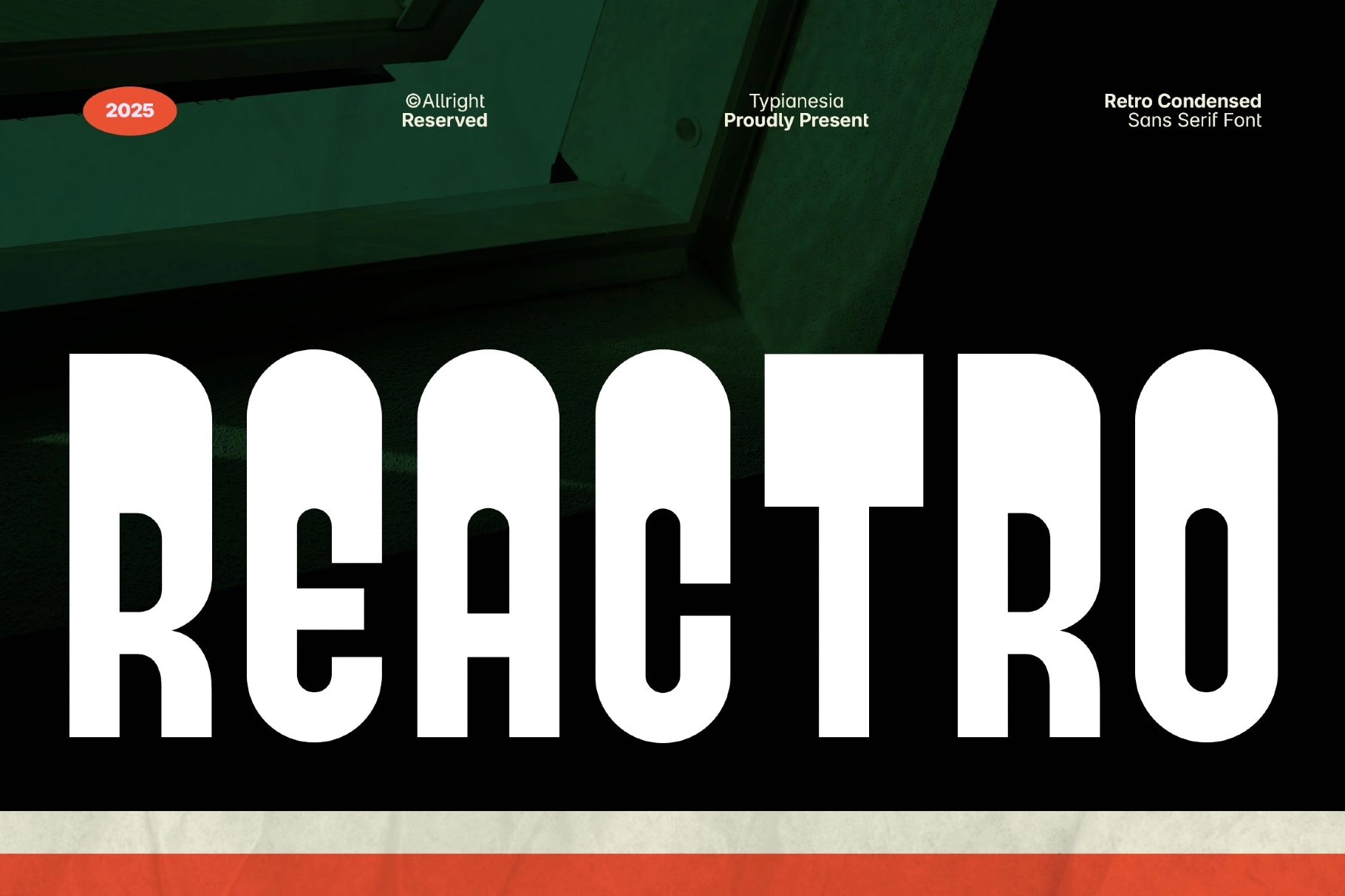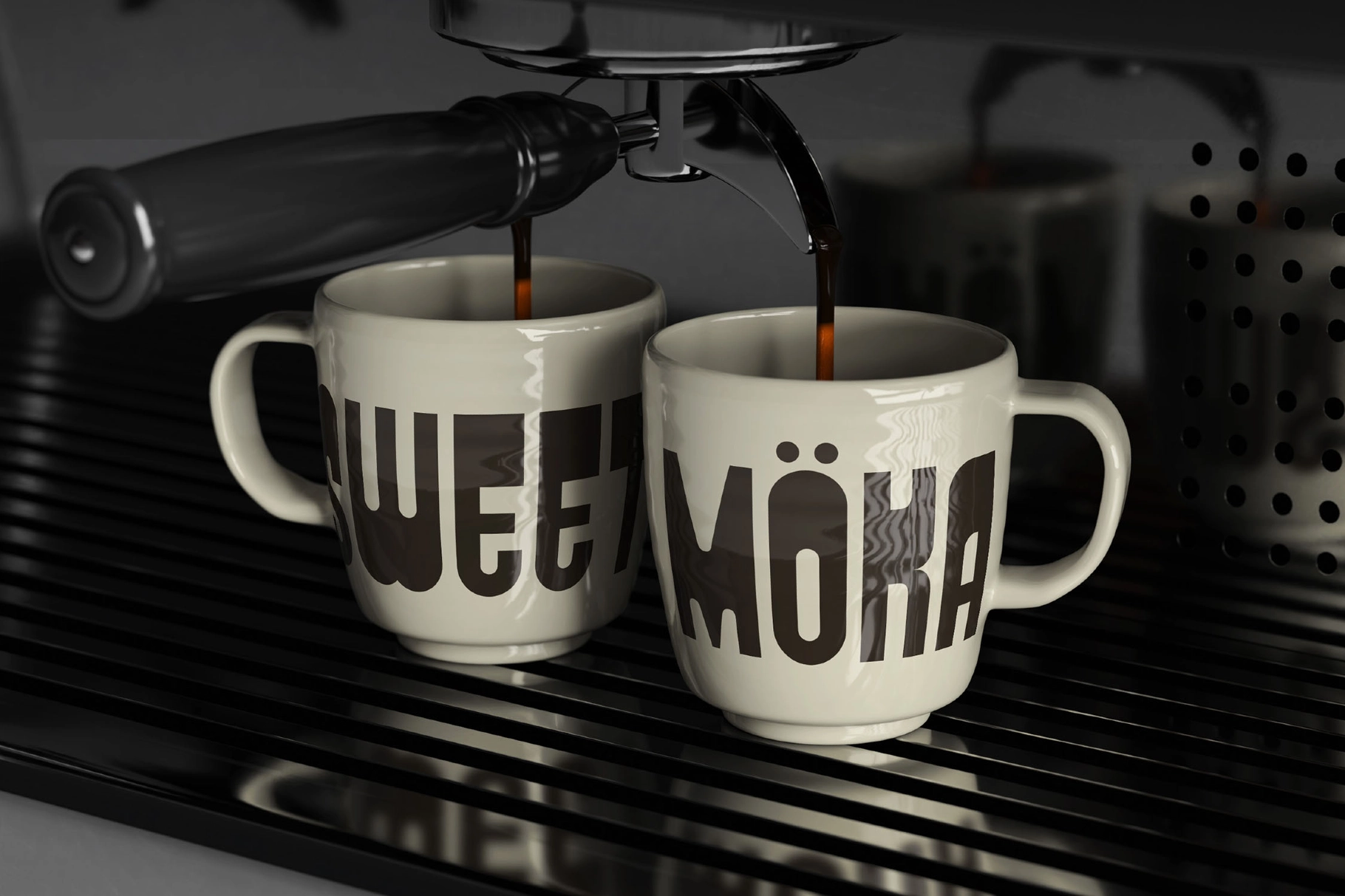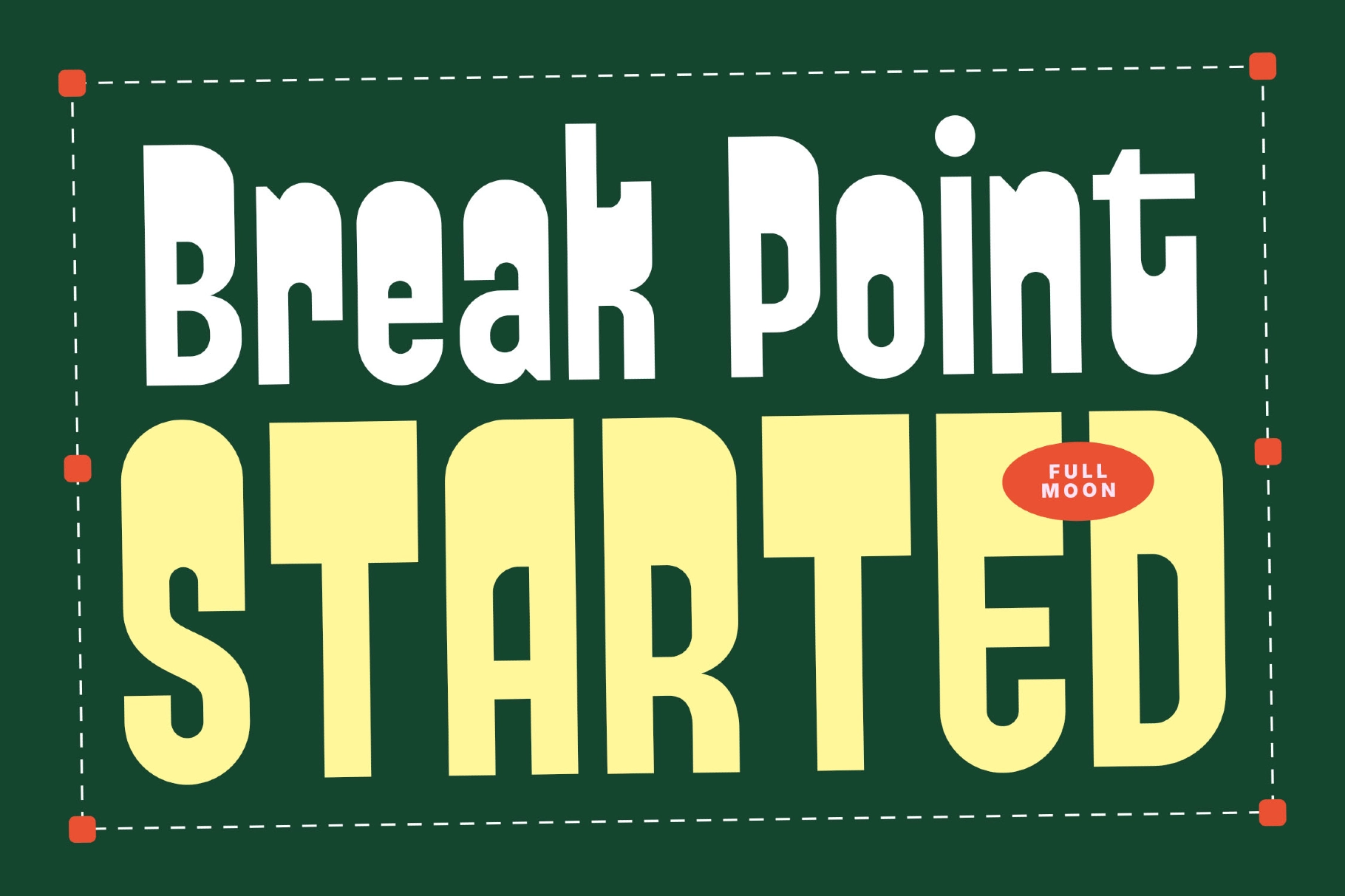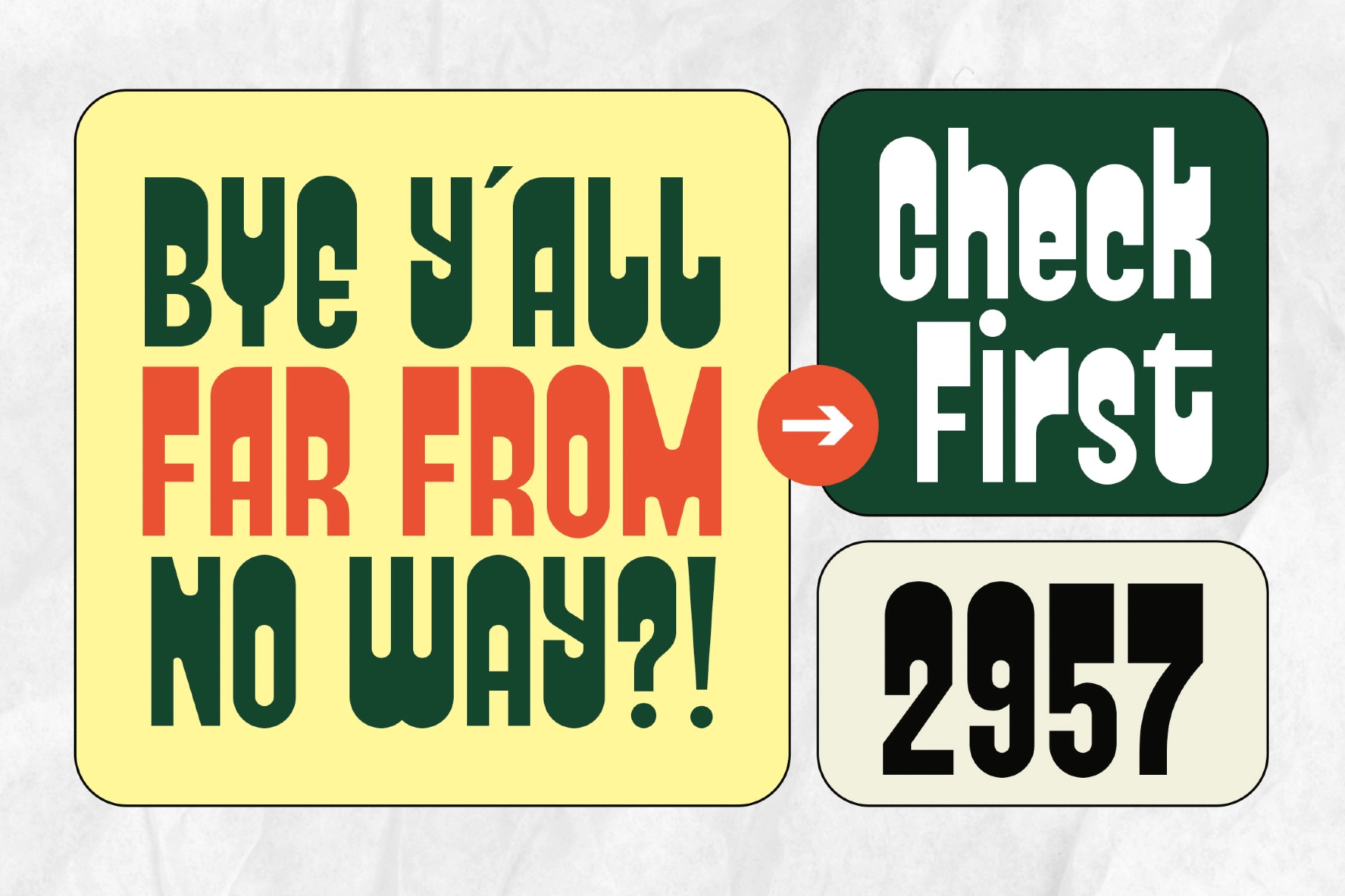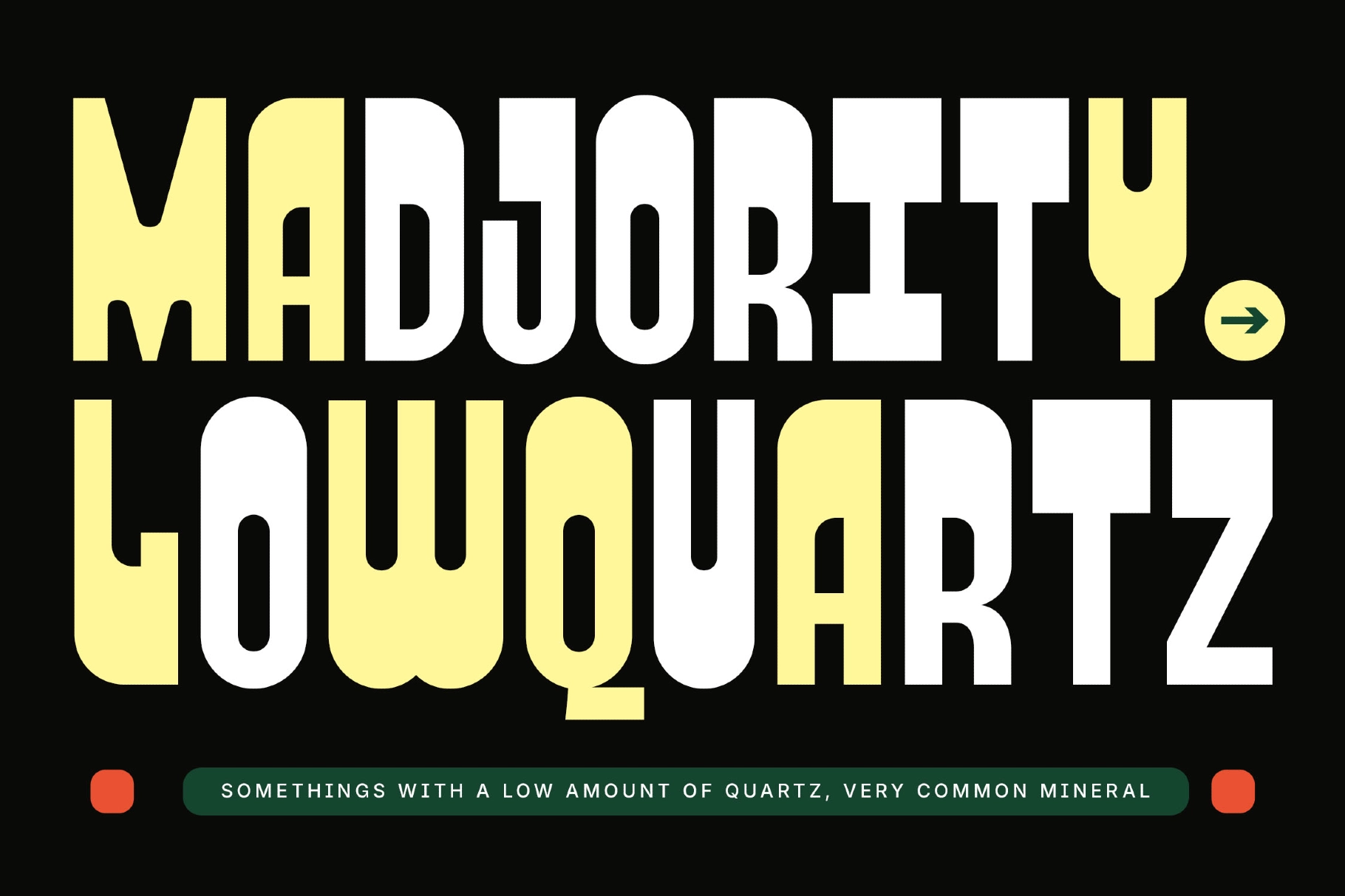
Reactro - Bold Retro Condensed Sans Serif
Reactro
Reactro: Bold Retro Condensed Sans-Serif Typeface - Typography serves as a vessel for personality within design, and Reactro is a testament to this principle. This bold, display sans-serif font captures a unique retro vibe, offering an exquisite blend of vintage charm and contemporary design. Reactro's solid, condensed forms make it an ideal choice for a variety of applications, including logos, product packaging, posters, signage, and advertising.
- Vintage Appeal – Seamlessly integrates a nostalgic sensibility with modern aesthetics.
- Versatile Usage – Perfect for cafes, apparel, and t-shirt designs that require a memorable impact.
- Stand-Out Design – Strong characteristics tailored for headlines and other projects that need prominence.